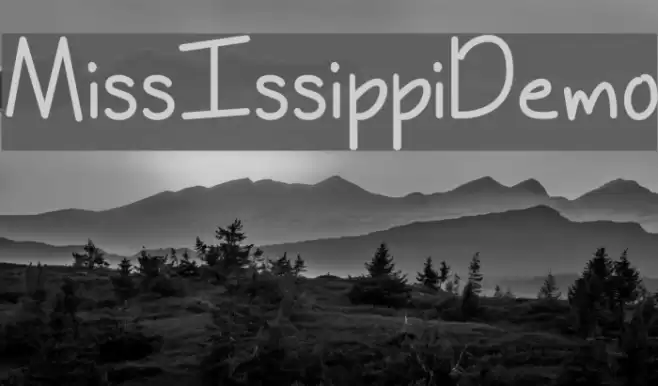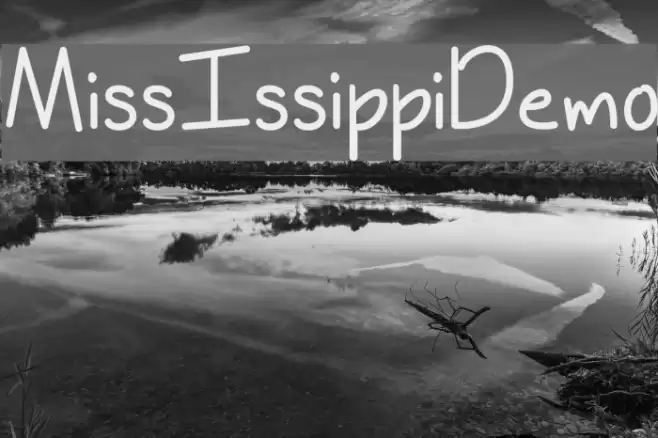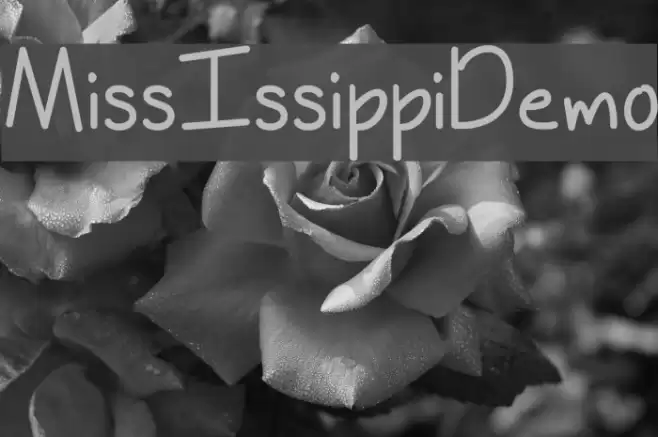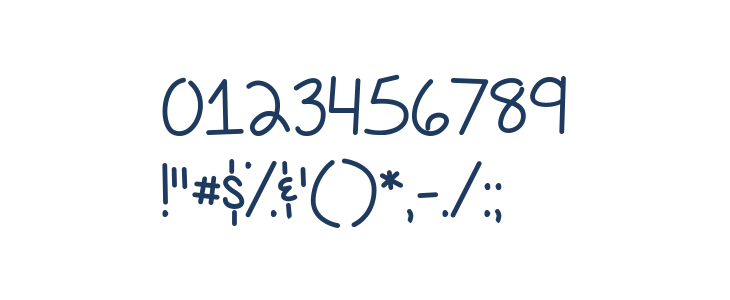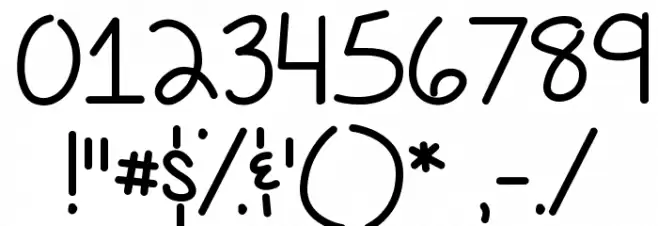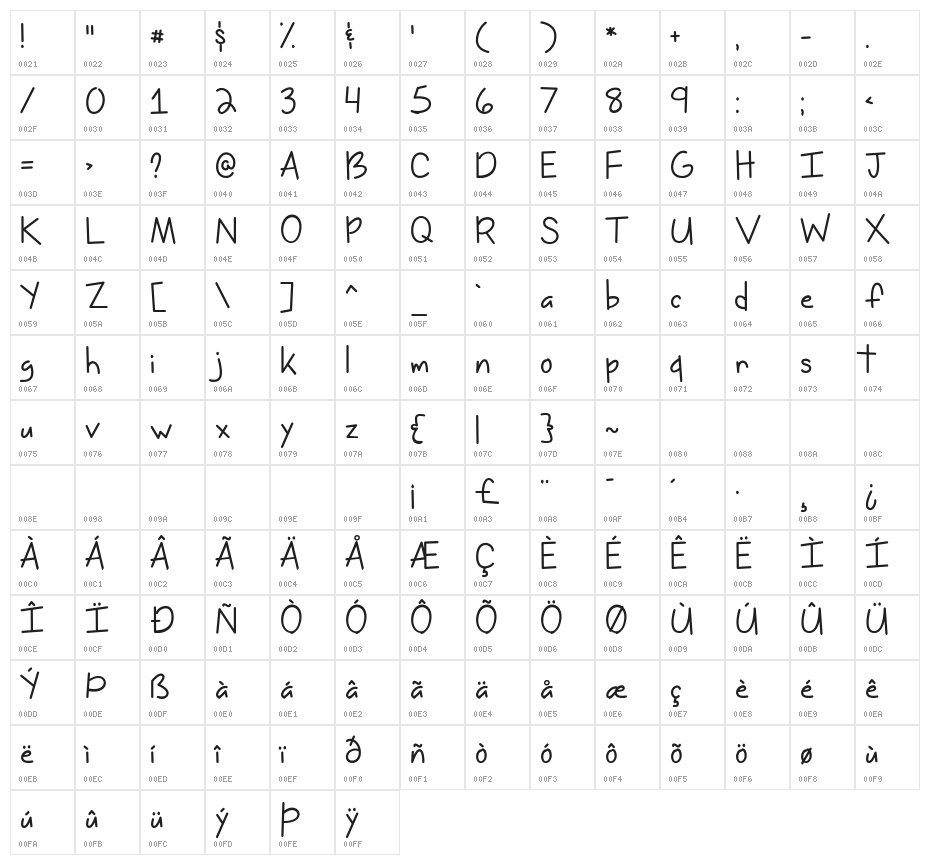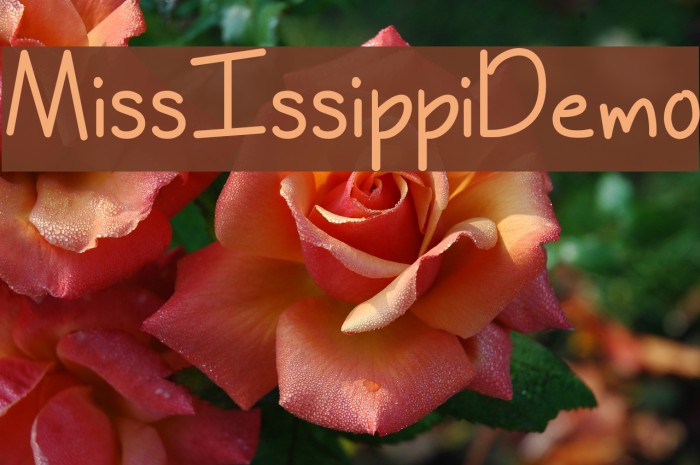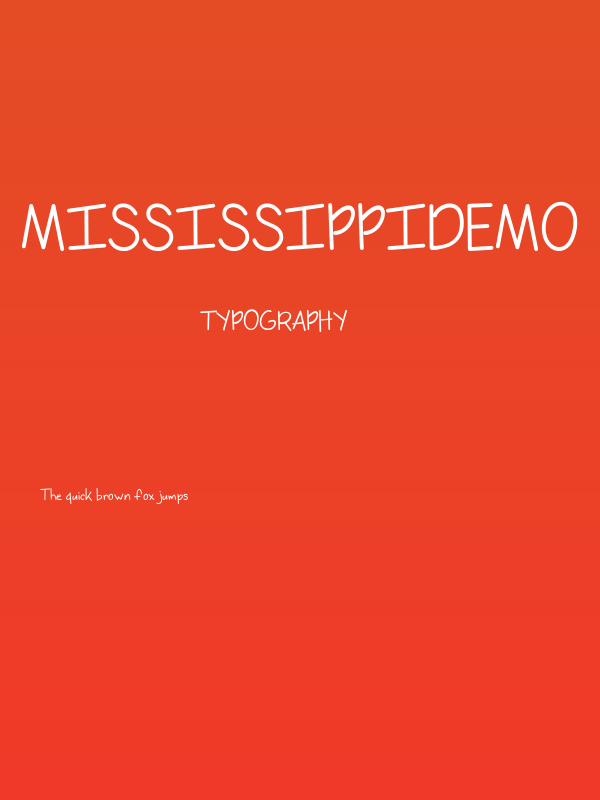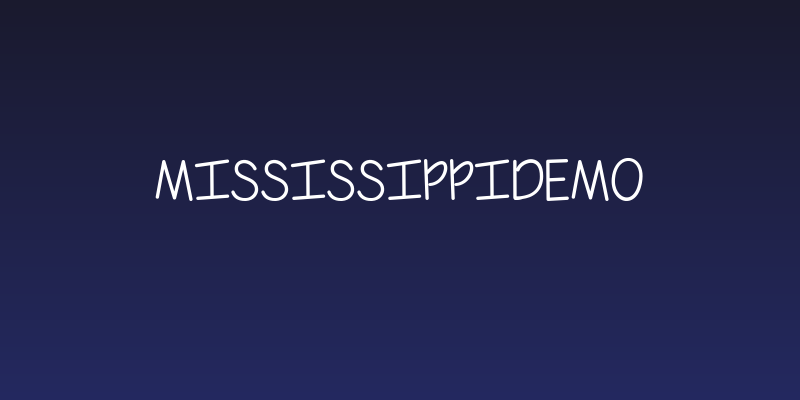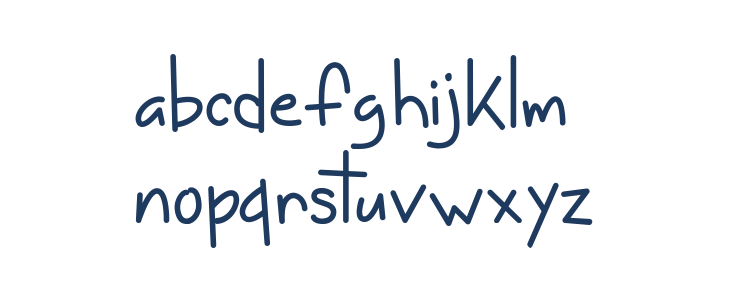
MissIssippiDemo Font
MissIssippiDemo Description
This playful and casual font features a handwritten style with a friendly and approachable feel. The characters are slightly irregular, adding a touch of whimsy and personality. The uppercase letters are tall and narrow, while the lowercase letters have a more rounded and open appearance. The numbers and special characters maintain the same playful aesthetic, making the font versatile for various uses. The overall design is clean and legible, with a consistent stroke width that ensures readability.
A playful handwritten font with a casual and friendly style from Uncategorized fonts.
- Proposed Projects: Ideal for children's books, greeting cards, casual branding, and playful social media graphics.
- Overall Style: Casual
- Use Case: Headlines, Informal text, Creative projects